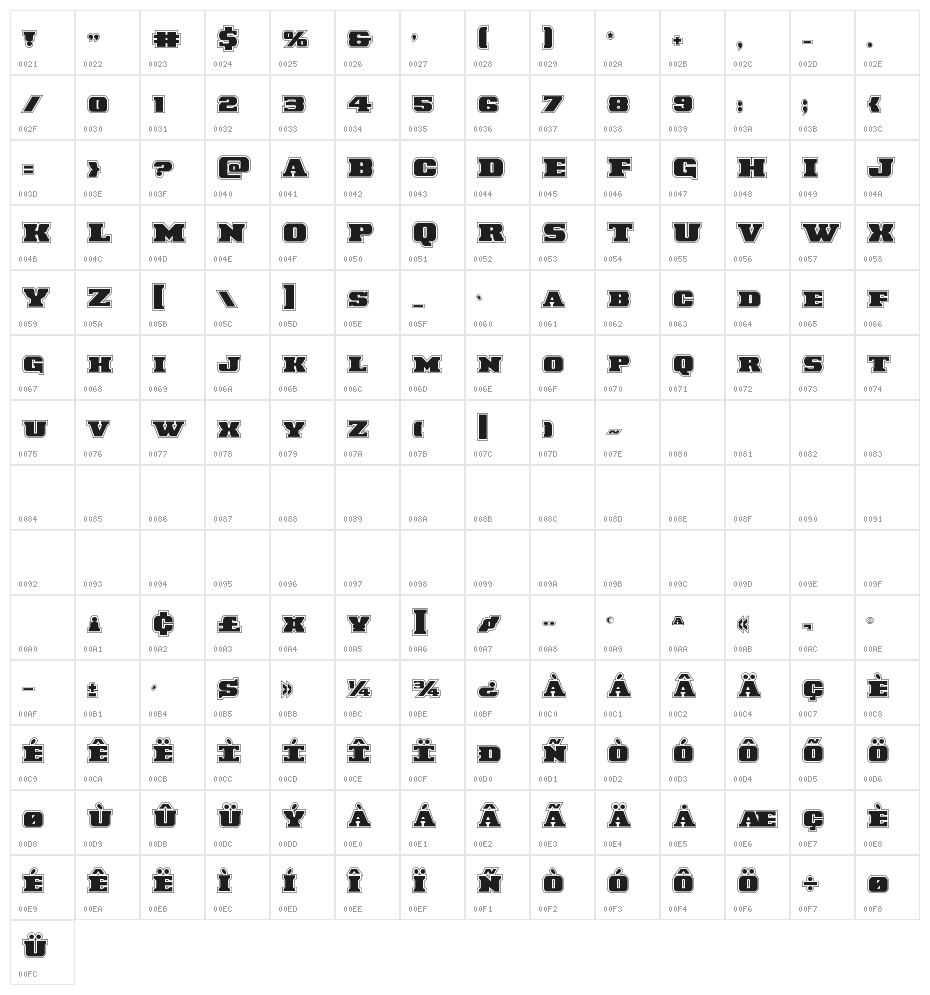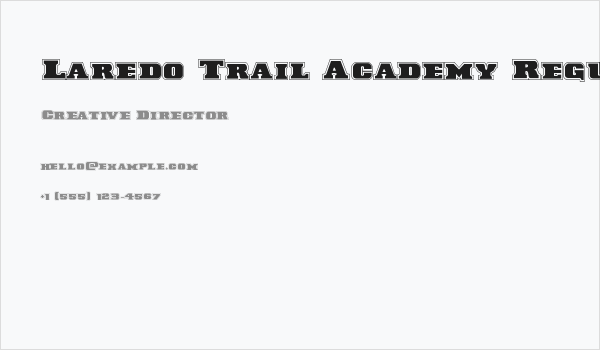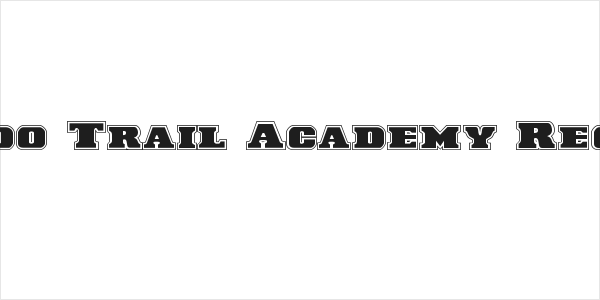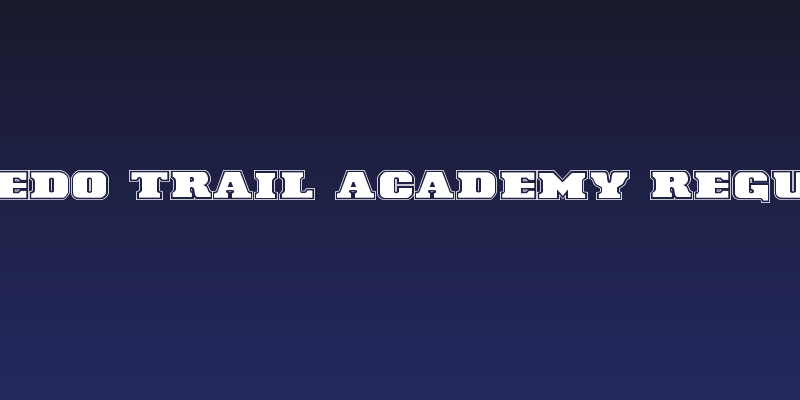
Laredo Trail Academy Regular Font
This font features a bold, blocky style with a strong presence, characterized by thick strokes and a solid, robust appearance. The letters are outlined, giving them a three-dimensional effect that enhances their visibility and impact. The uppercase and lowercase letters maintain a consistent weight, contributing to a cohesive look. The numerals and special characters share the same boldness, ensuring uniformity across all elements. This font is designed to stand out, making it ideal for attention-grabbing headlines and signage.
| Proposed Projects | Ideal for posters, signage, sports team branding, and any project requiring a strong, impactful typeface. |